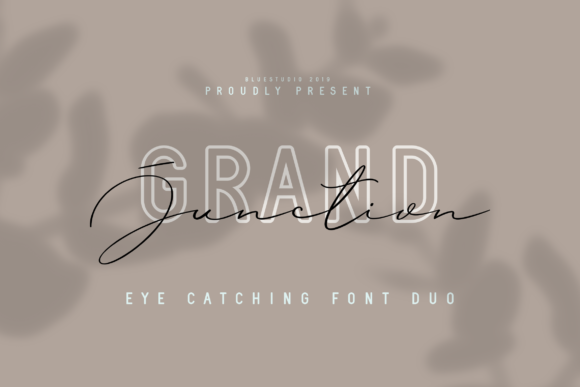
Unleash the Power of Elegance with Grand Junction Duo Font: A Timeless Masterpiece for Your Creative Expressions
In a world where individuality and style reign supreme, introduce Grand Junction Duo Font, an exquisite font duo that will transform your creative projects into masterpieces. This modern, elegant, and stylish font duo is meticulously designed by Bluestudio, a renowned name in typography, to fulfill the desires of design enthusiasts like you.
Immerse yourself in the captivating world of Grand Junction and discover the boundless possibilities it unlocks for your designs. With its bold character, this font duo exudes a timeless charm that transcends trends, ensuring your creations remain captivating and alluring for years to come.
Craft logos that command attention, headlines that resonate with power, and designs that leave a lasting impression. Whether you're a seasoned designer or just beginning your creative journey, Grand Junction Duo Font is your trusted companion, guiding you towards design excellence.
Step into the realm of infinite creativity with Grand Junction Duo Font. Let your imagination run wild as you explore its versatile styles, perfect for a myriad of projects, from branding and marketing to social media graphics and wedding invitations.
This font duo is a true testament to the transformative power of typography. Its ability to elevate your designs, capture hearts, and leave an indelible mark on your audience is unparalleled. Join countless designers who have embraced Grand Junction Duo Font and witnessed the wonders it brings to their creative endeavors.